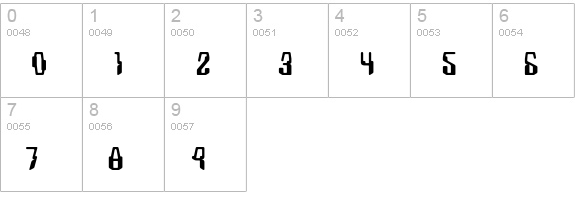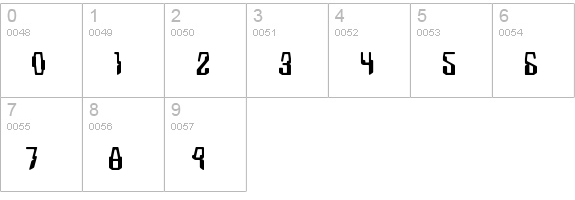
Coaxial Font Details
Coaxial font is a modern and sleek typeface that exudes elegance and sophistication. With its clean lines and geometric shapes, Coaxial font is perfect for creating stylish and contemporary designs. This versatile font can be used for a wide range of projects, from branding and packaging to posters and websites. Its unique design sets it apart from other fonts, making it a standout choice for any creative endeavor. The best part about Coaxial font is that it is completely free to download at FontsMarket.com. This means you can access this stunning font without any cost, allowing you to elevate your projects without breaking the bank. Don't miss out on the opportunity to add Coaxial font to your collection and take your designs to the next level. Download it today and unleash your creativity with this exceptional typeface.